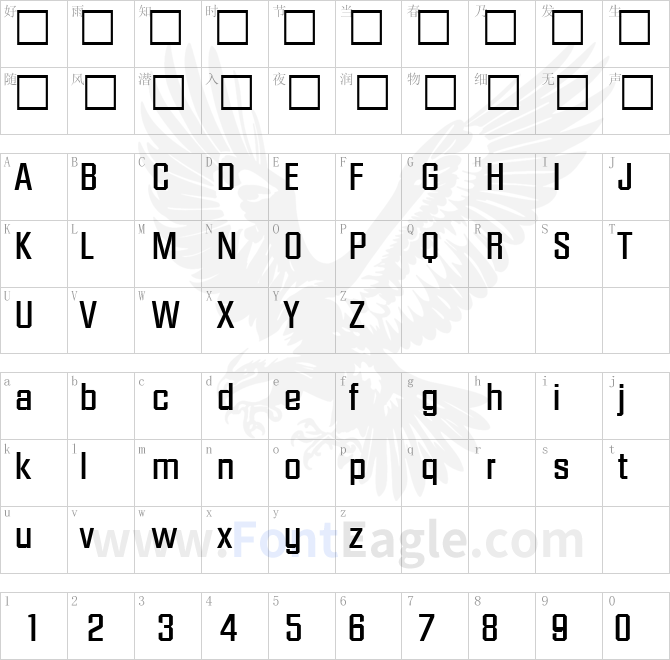
- Font name:Diamante-Medium
Diamante-Medium is a great font, widely used in graphic design, single-page menu design, poster design and other fields, and is deeply loved by designers.Diamante-Medium download.